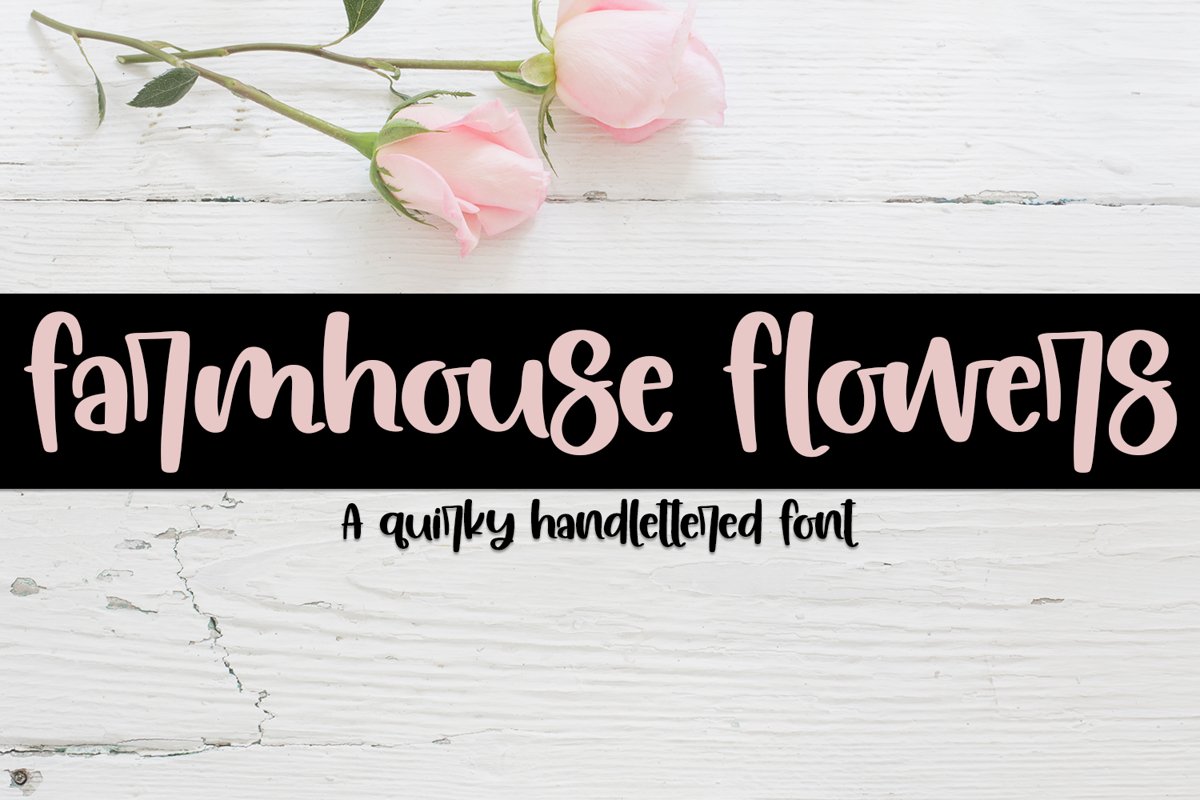
Farmhouse Flowers - A Quirky Hand-Lettered Font
Farmhouse Flowers is a quirky hand-lettered font, made specifically for crafters with clean lines and minimal nodes.